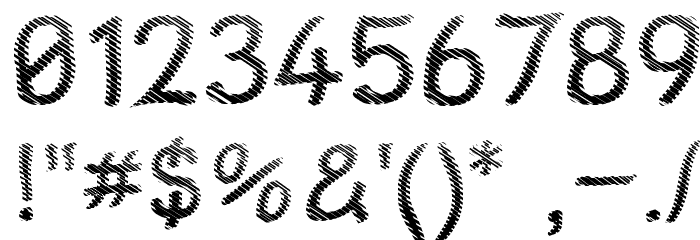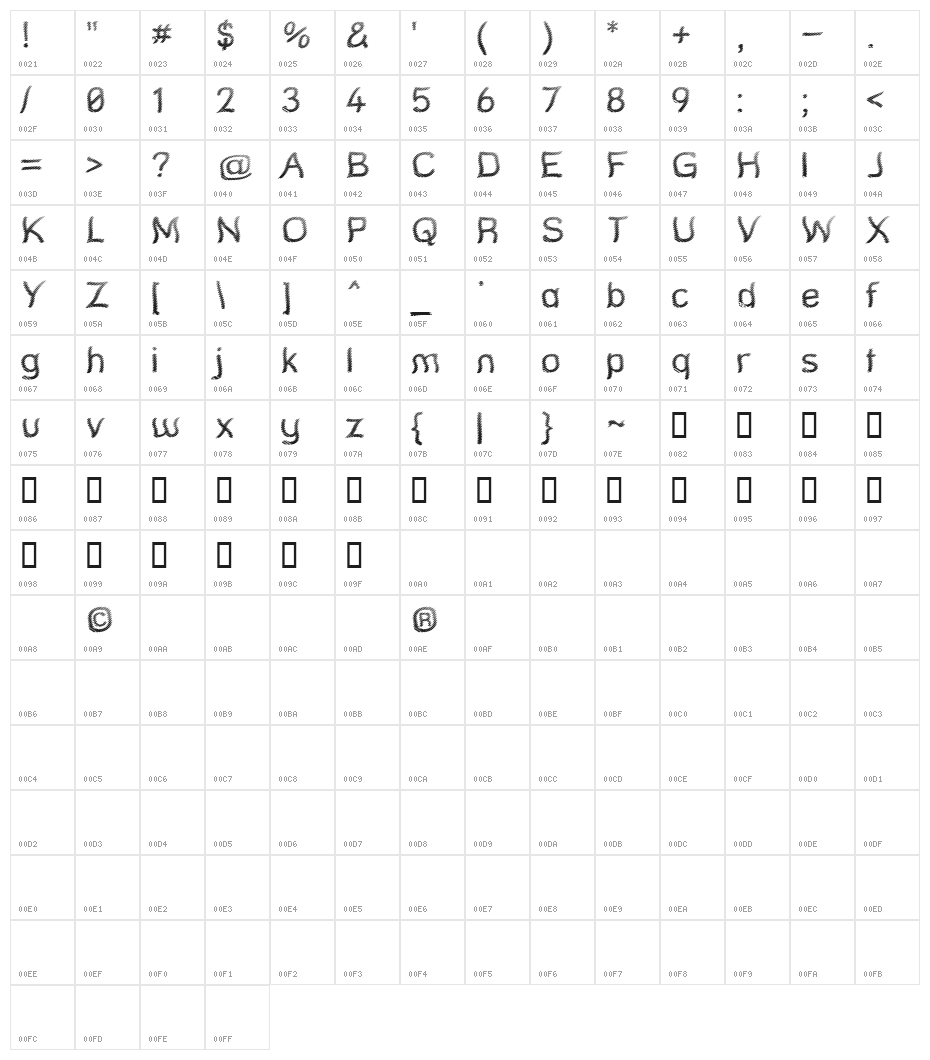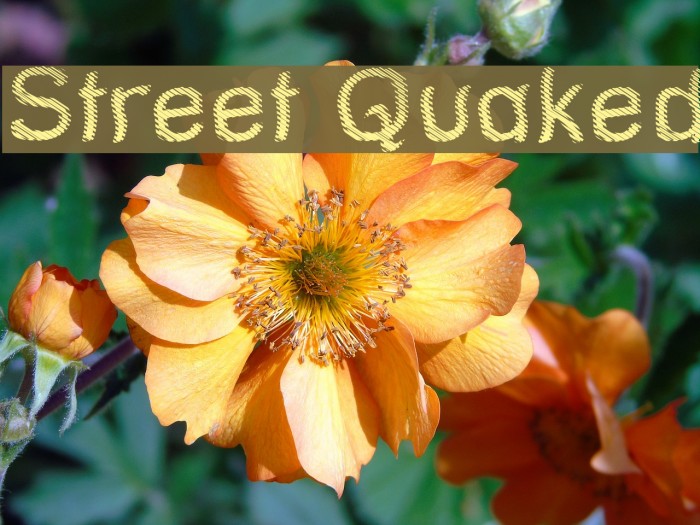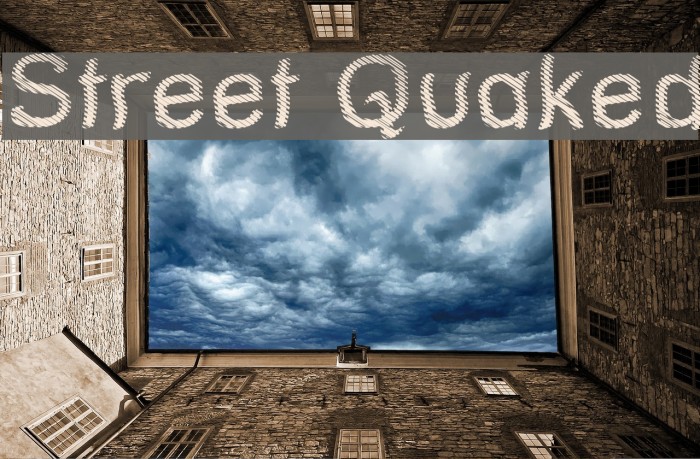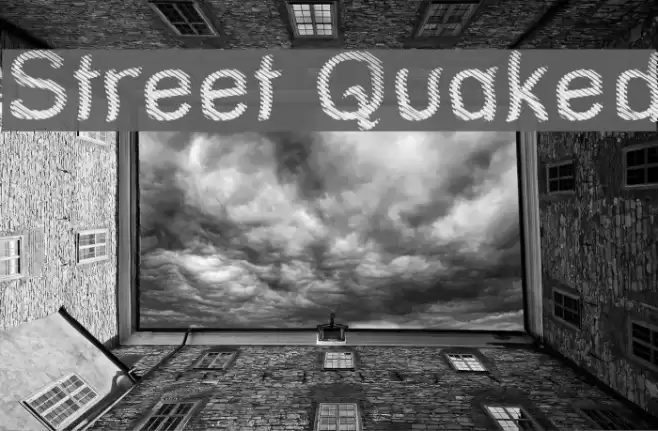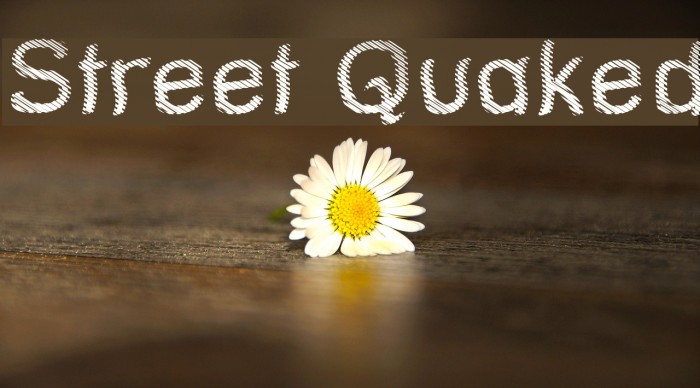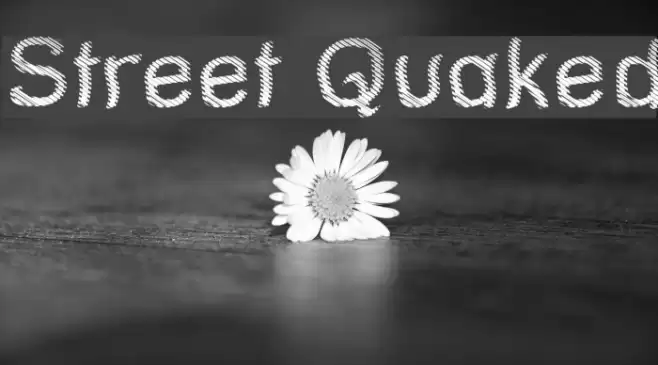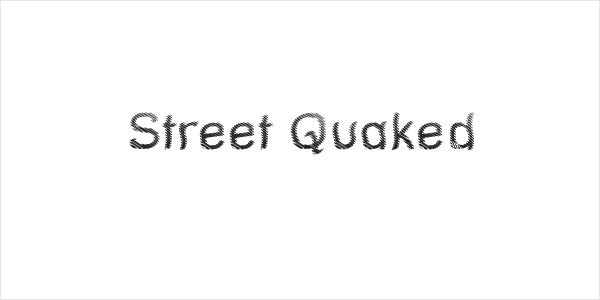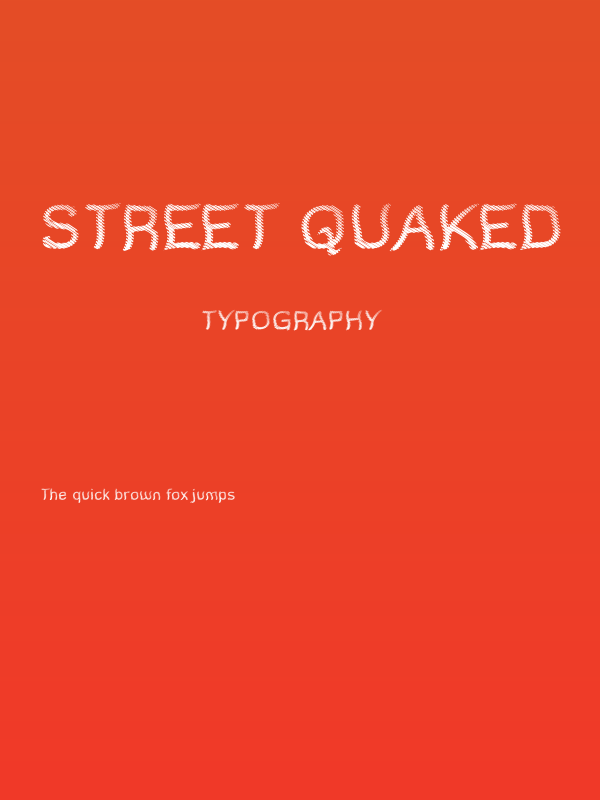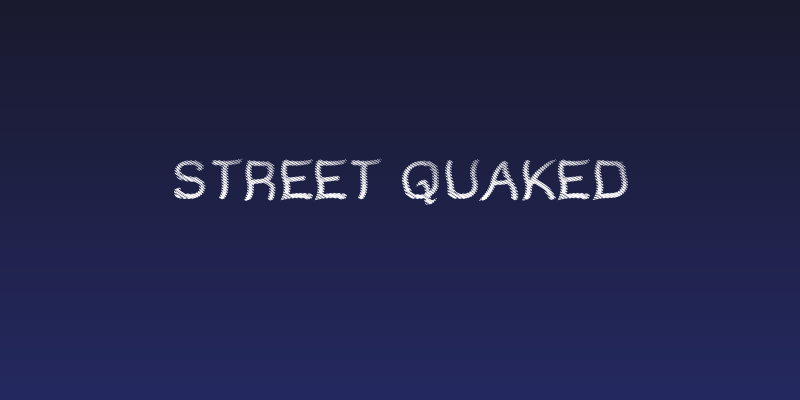
Street Quaked Font
Street Quaked Description
This font features a dynamic, textured design that gives each character a sense of movement and energy. The letters are crafted with a series of diagonal lines that create a unique, almost vibrating effect. This design choice adds a layer of depth and complexity, making it stand out in any context. The uppercase and lowercase letters maintain a consistent style, ensuring readability while still offering a distinctive look. Numbers and special characters are equally well-designed, following the same textured pattern, which adds to the font's cohesive appearance. The overall aesthetic is bold and eye-catching, making it suitable for projects that require a strong visual impact.
Proposed ProjectsIdeal for posters, album covers, branding materials, and any project needing a striking visual element.